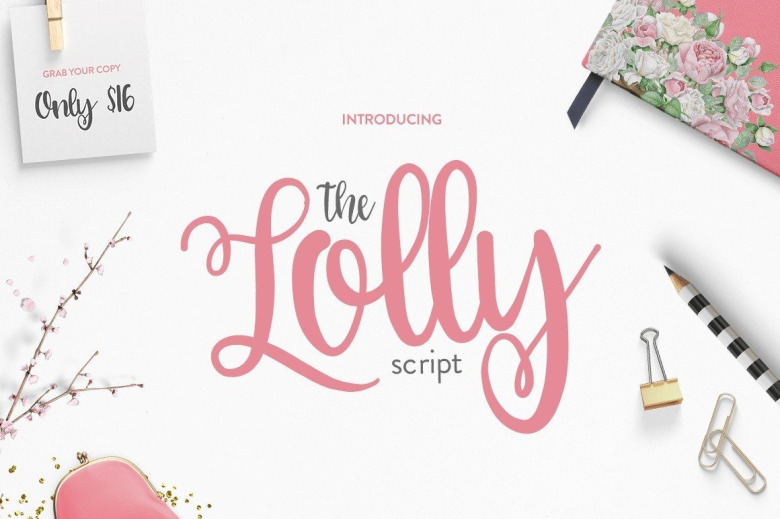
The Lolly Font
The Lolly Script Font is a brand new thick script based font. Available for both personal and commercial use. No extended license is required. Download and use The Lolly Script for anything and everything.